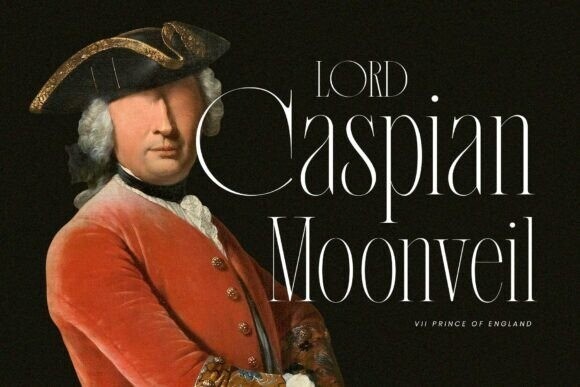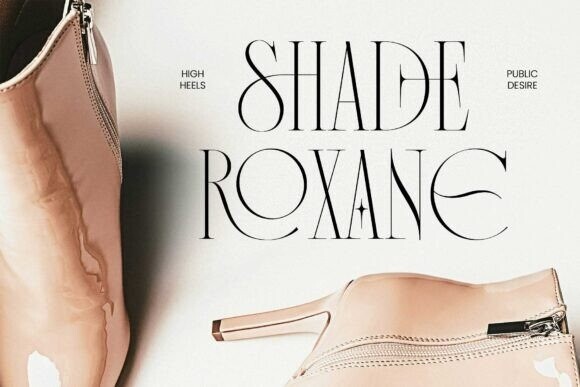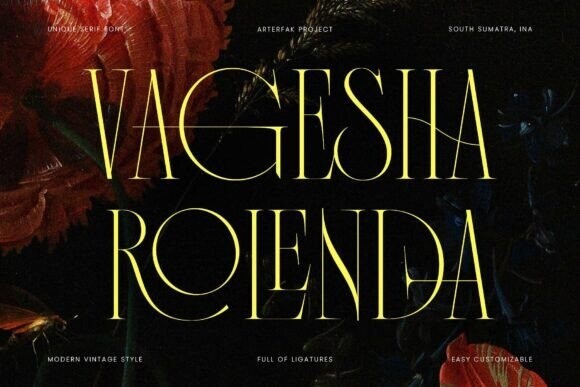
Vagesha Rolenda Font
Vagesha Rolenda Font, a nostalgic vintage serif that embodies timeless elegance with a touch of cultural charm. This font features a condensed height, geometric curves, and elongated serifs, creating a sophisticated and refined look. Its slim and luxurious design makes it perfect for captivating displays.